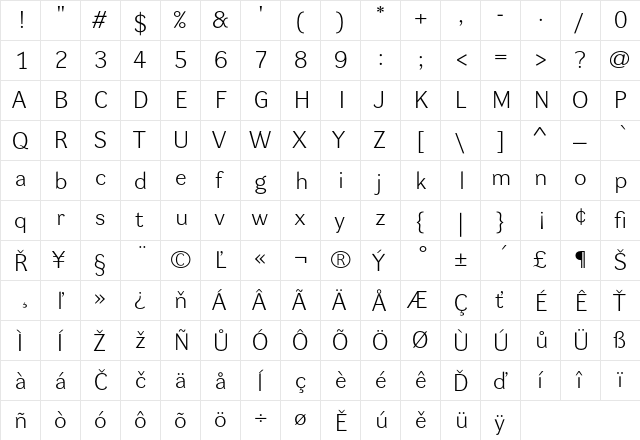
Dynamo LE Regular
Design Context for Dynamo LE Typeface
Dynamo LE offers clean, dependable letterforms without strong stylistic allegiance, making it a practical choice for designers who need flexibility.